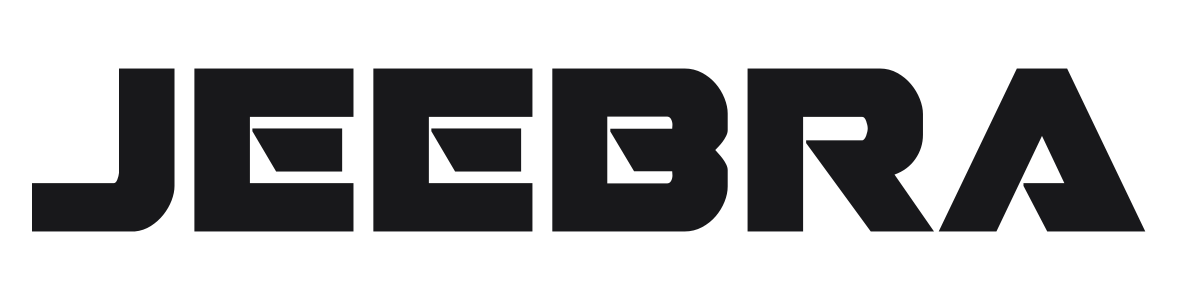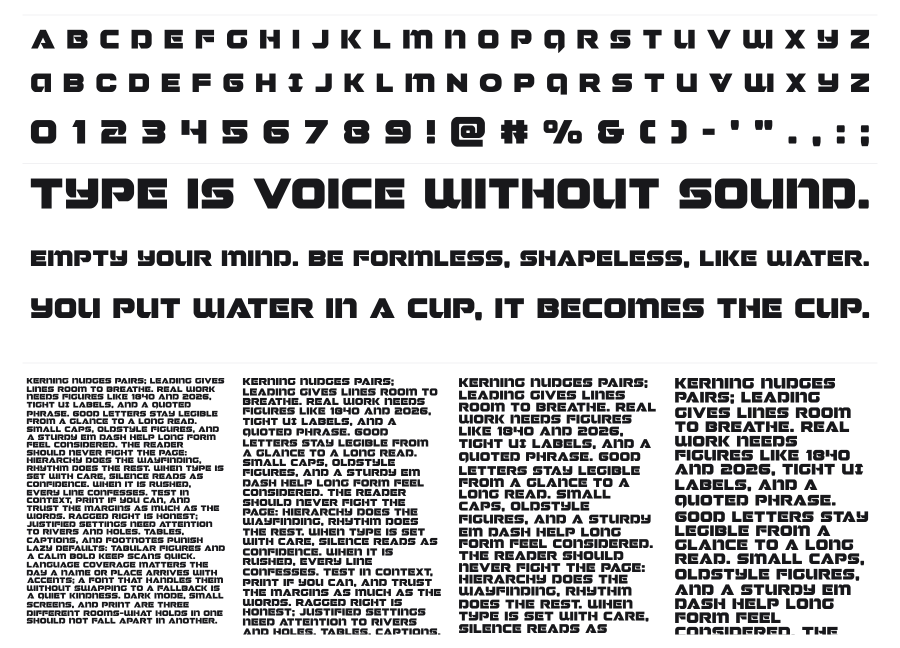
Jeebra
Jeebra is a heavy geometric sans with angular cutouts slashed through its bold, blocky characters, giving it a distinctly retrofuturist edge. The notched construction recalls 1970s sci-fi lettering and action-movie title sequences, somewhere between military stencil and comic-book technology. Available in 19 variants including 3D, halftone, and gradient versions.